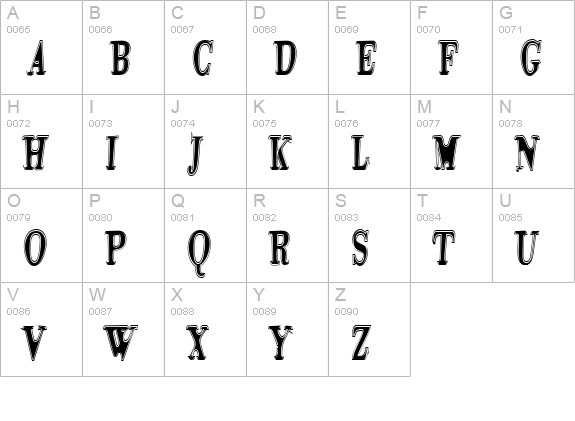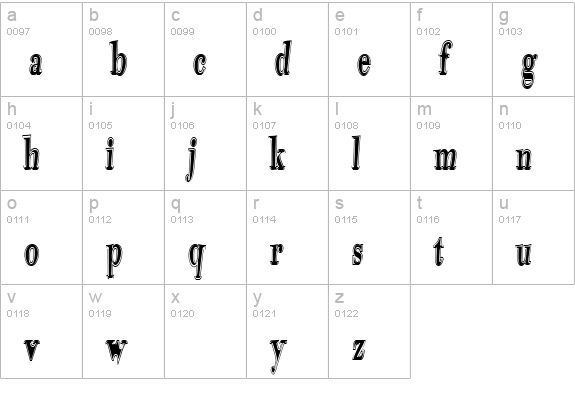
Tidelagskoprofag Font Details
Introducing Tidelagskoprofag, a stunning and versatile font that will elevate your designs to new heights. This remarkable typeface boasts a perfect balance between elegance and modernity, making it suitable for a wide range of projects. With its sleek and sophisticated curves, Tidelagskoprofag exudes a sense of professionalism and refinement. Whether you're working on a logo, branding materials, invitations, or any other design project, this font will effortlessly add a touch of sophistication and class. One of the most remarkable aspects of Tidelagskoprofag is that it is free! That's right, this exceptional font is freely available to download at FontsMarket.com. Now, you can enhance your projects without worrying about breaking the bank. Tidelagskoprofag offers a vast array of characters, including uppercase and lowercase letters, numerals, punctuation marks, and special glyphs. This extensive character set ensures that you have everything you need to create visually stunning and cohesive designs. The versatility of Tidelagskoprofag shines through in its ability to adapt to various design styles. Whether you're going for a clean and minimalist look or a bold and eye-catching aesthetic, this font is the perfect choice. Its versatility allows it to seamlessly integrate into any design concept, ensuring that you can achieve your desired vision effortlessly. Moreover, Tidelagskoprofag is incredibly easy to use. Its clean and legible design ensures that your text remains highly readable, even at smaller sizes. This font's attention to detail and meticulous craftsmanship guarantee that your message will be conveyed with clarity and impact. So why wait? Experience the beauty and versatility of Tidelagskoprofag today. Download this exceptional font for free at FontsMarket.com and unlock endless creative possibilities. Elevate your designs, captivate your audience, and leave a lasting impression with Tidelagskoprofag font.